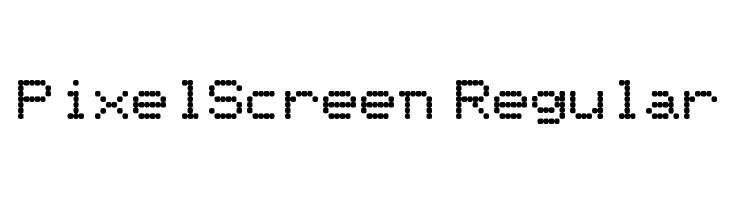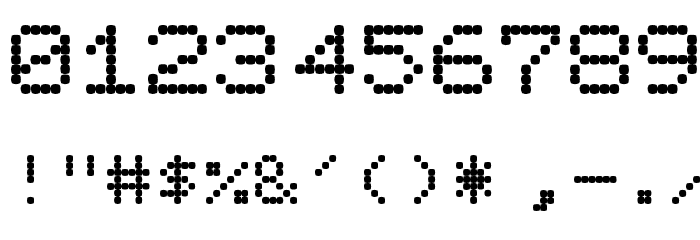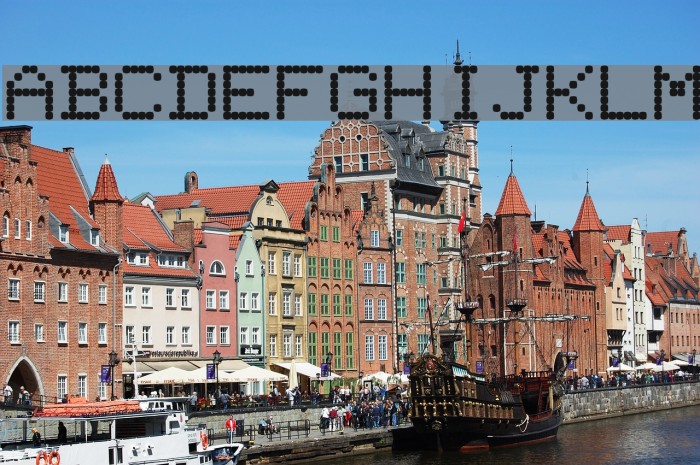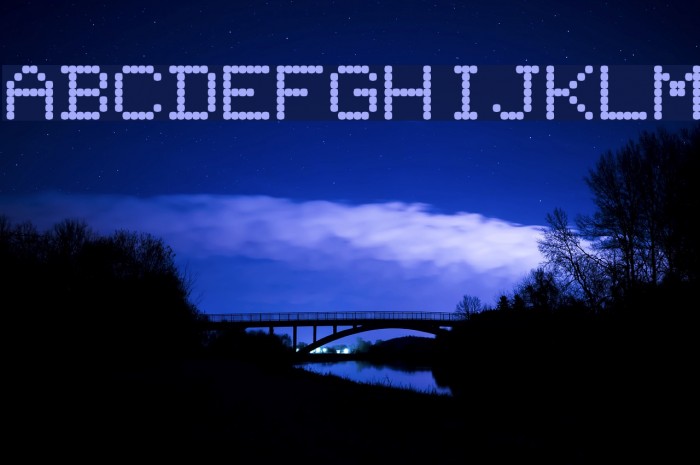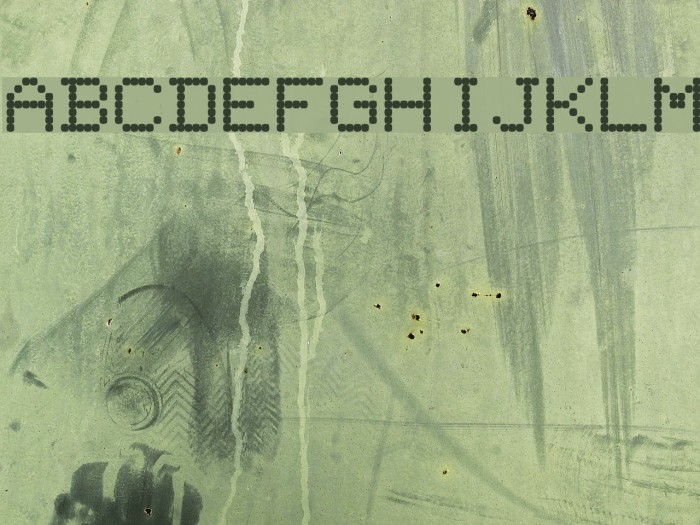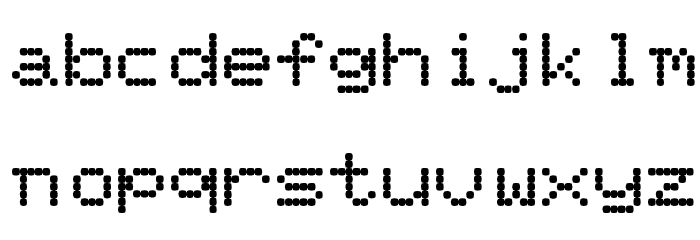
PixelScreen Regular Font
PixelScreen Regular Description
This font features a unique design composed entirely of small, evenly spaced dots, creating a pixelated effect reminiscent of early digital displays. The characters are formed with precision, maintaining a consistent grid-like structure that gives it a modern and technological appearance. Each letter and number is clearly distinguishable, despite the unconventional style, making it both artistic and functional. The font's geometric nature and uniformity make it ideal for projects that aim to evoke a sense of nostalgia for retro digital aesthetics or to convey a futuristic, tech-savvy vibe.
A dot-based, pixelated font with a modern, digital aesthetic from Dotted fonts.
- Proposed Projects: Ideal for digital art, retro-themed designs, tech branding, and video game interfaces.
- Use Case: Headlines, Logos, Digital displays